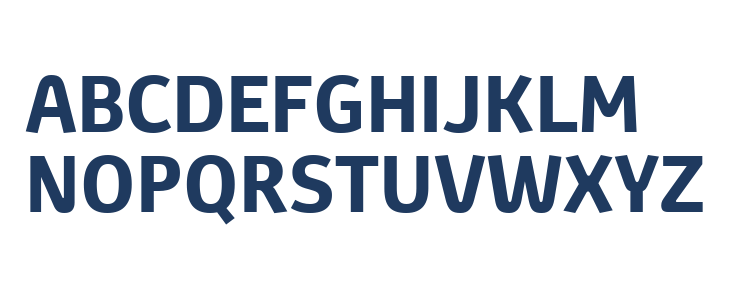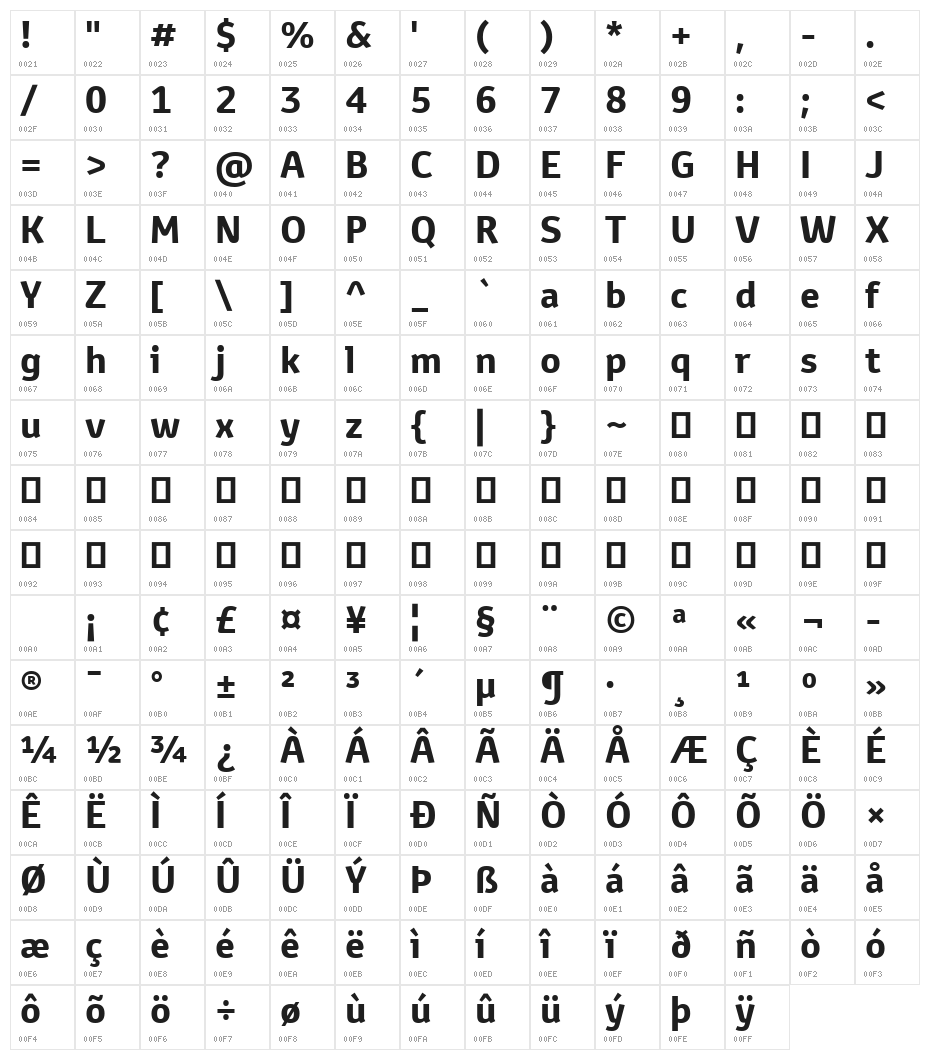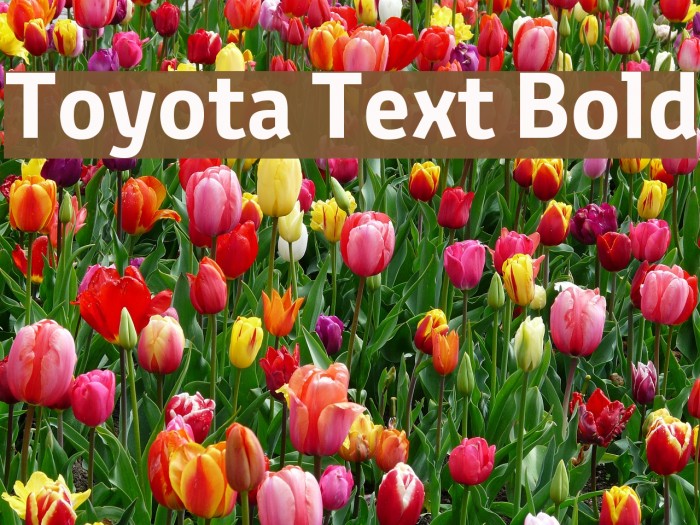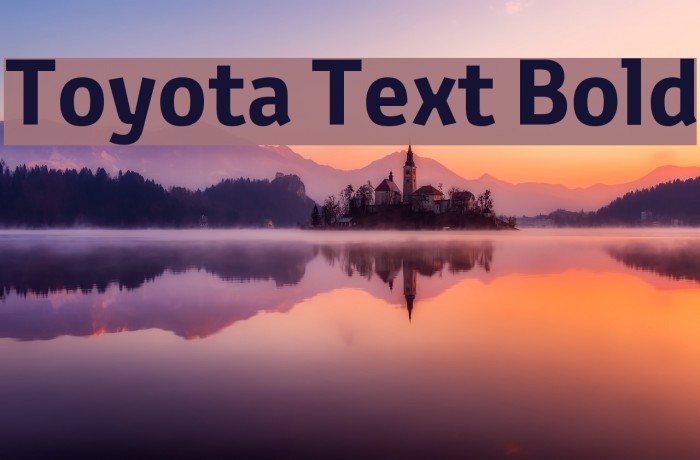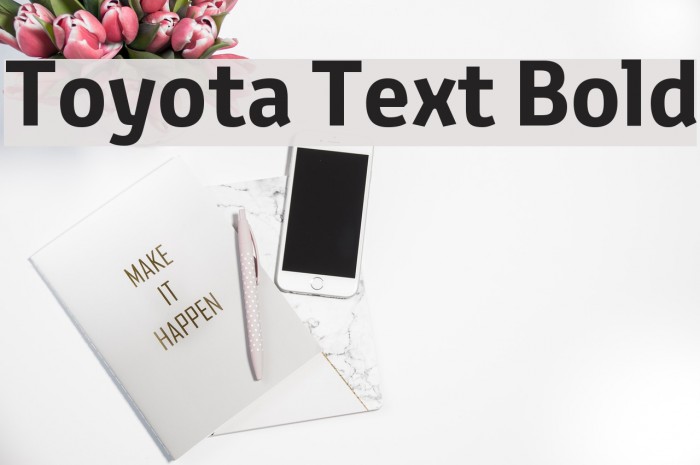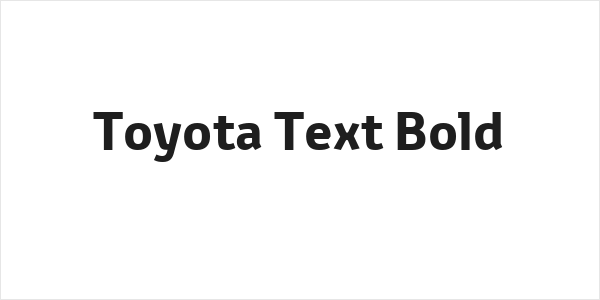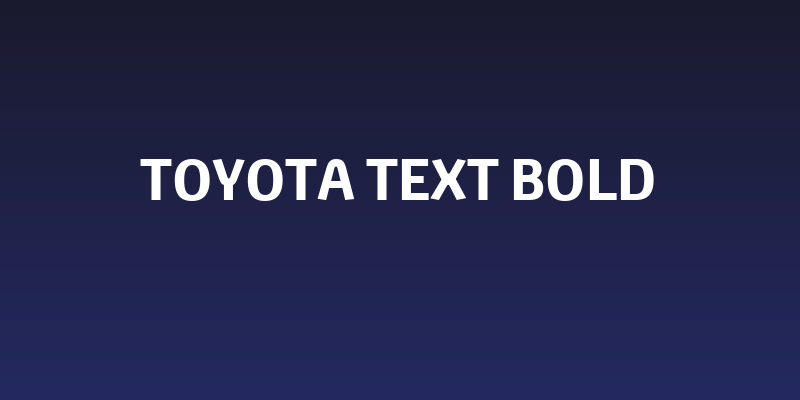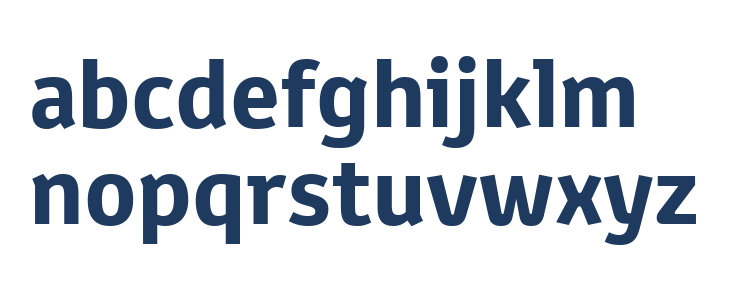
Toyota Text Bold Font
Toyota Text Bold Description
This font features a bold and modern sans-serif design, characterized by clean lines and a strong presence. The uppercase letters are uniform in height, providing a balanced and structured look. The lowercase letters maintain a consistent style, with rounded edges that add a touch of softness to the overall boldness. The numerals are clear and easily distinguishable, making them suitable for a variety of applications. Special characters are well-defined, ensuring readability and versatility. This font is ideal for projects that require a contemporary and professional appearance.